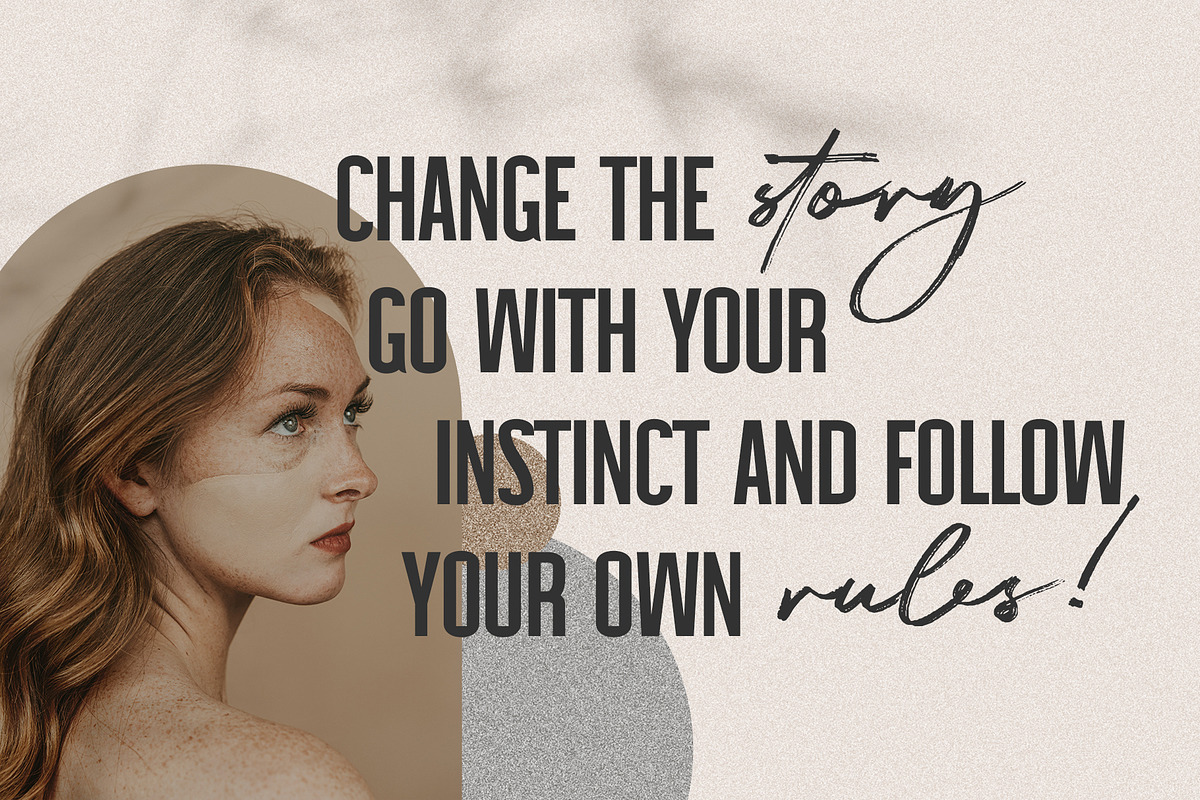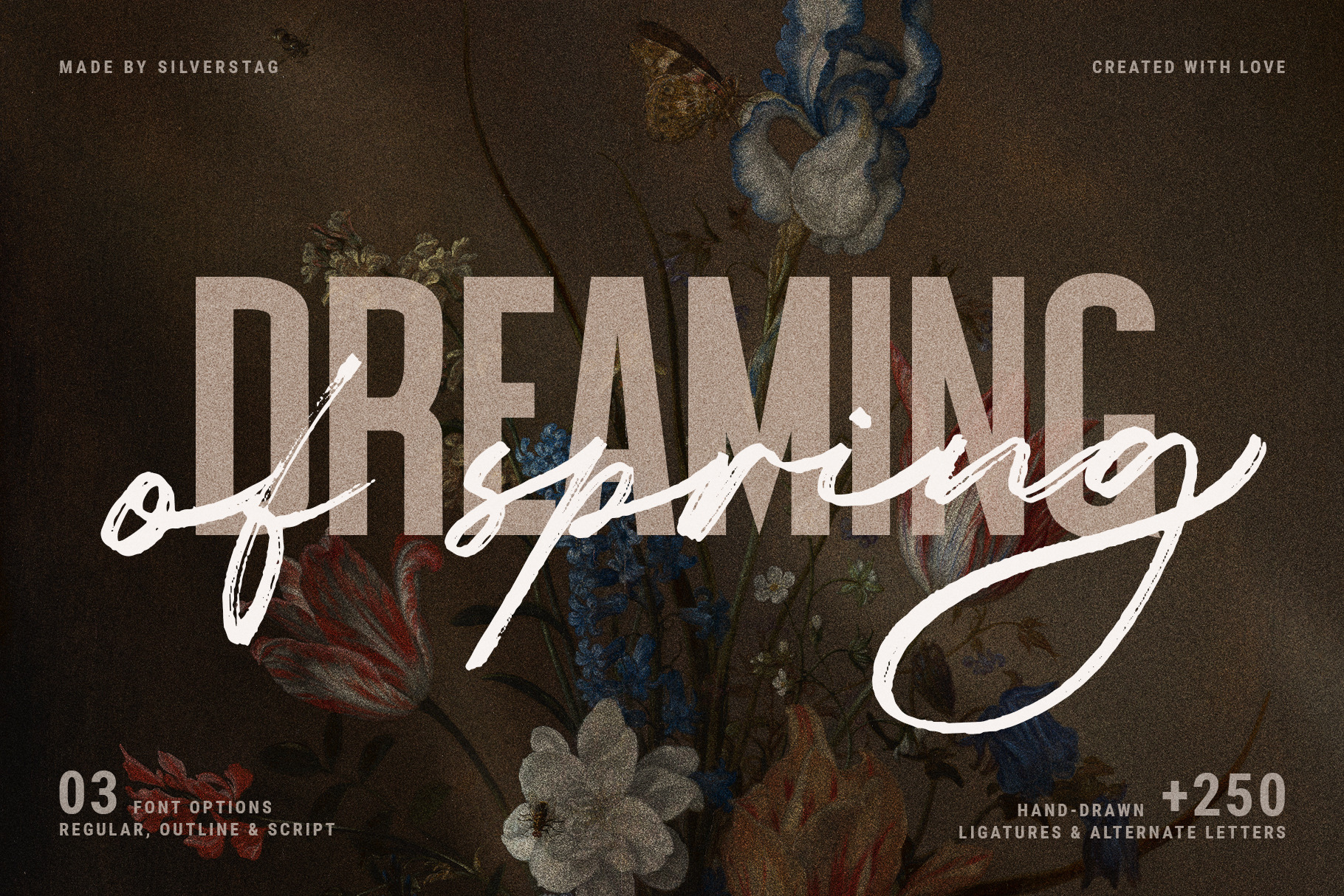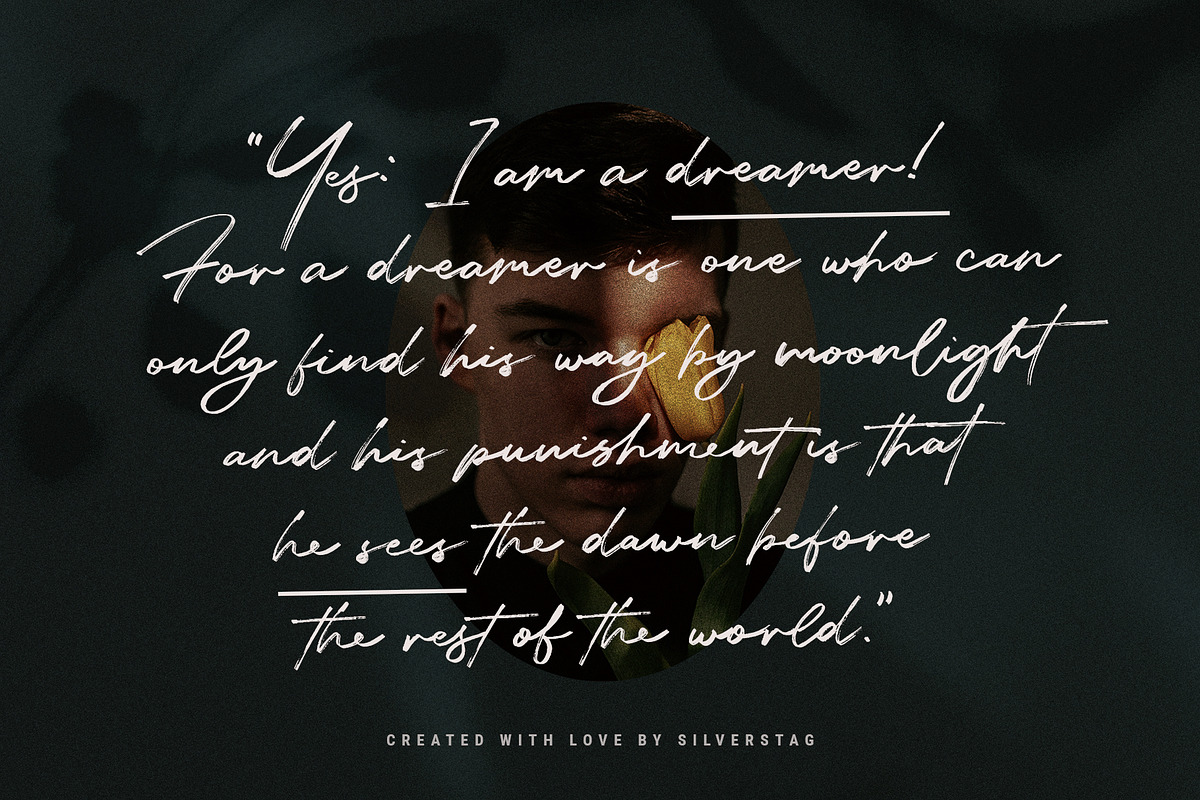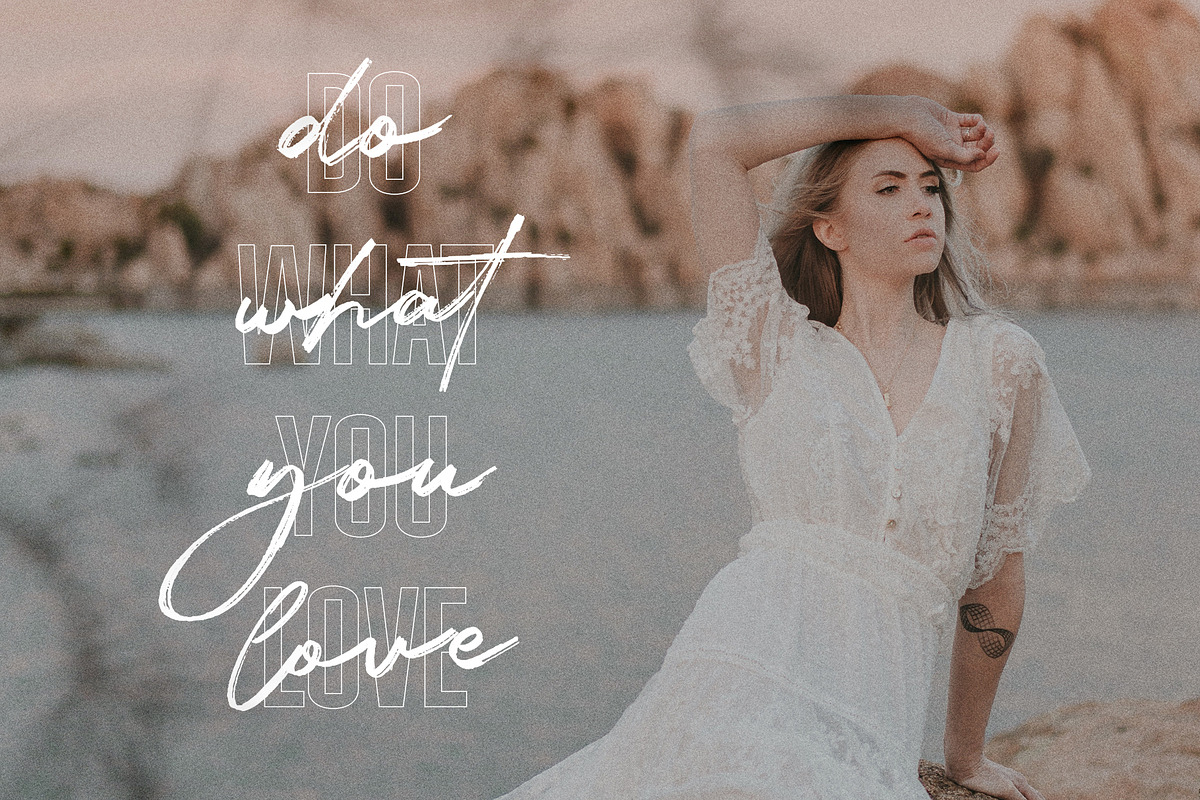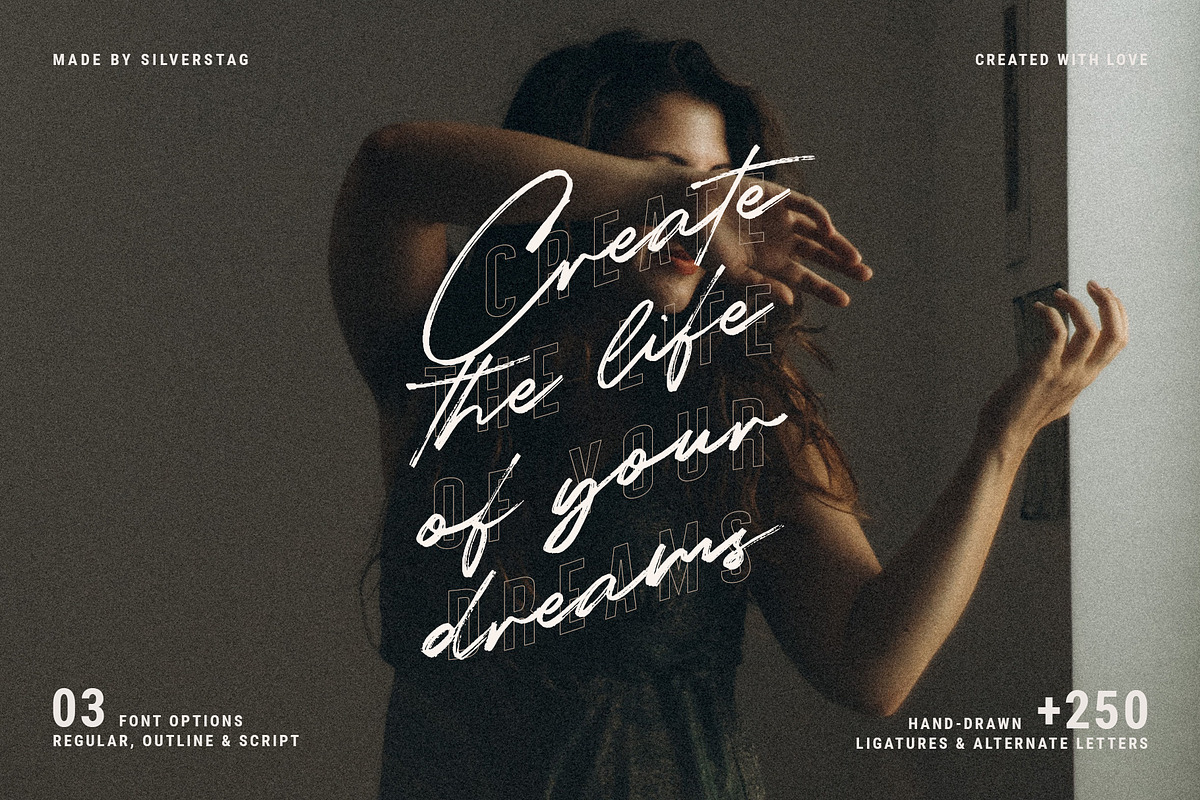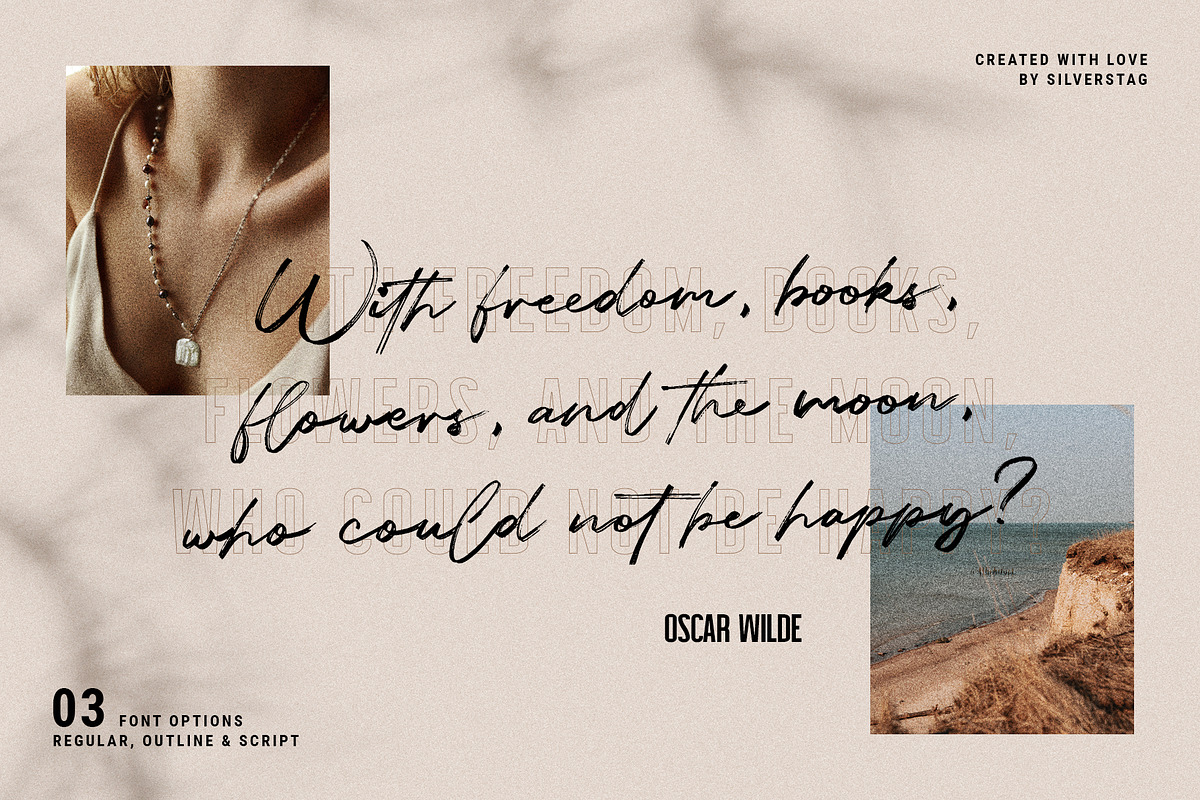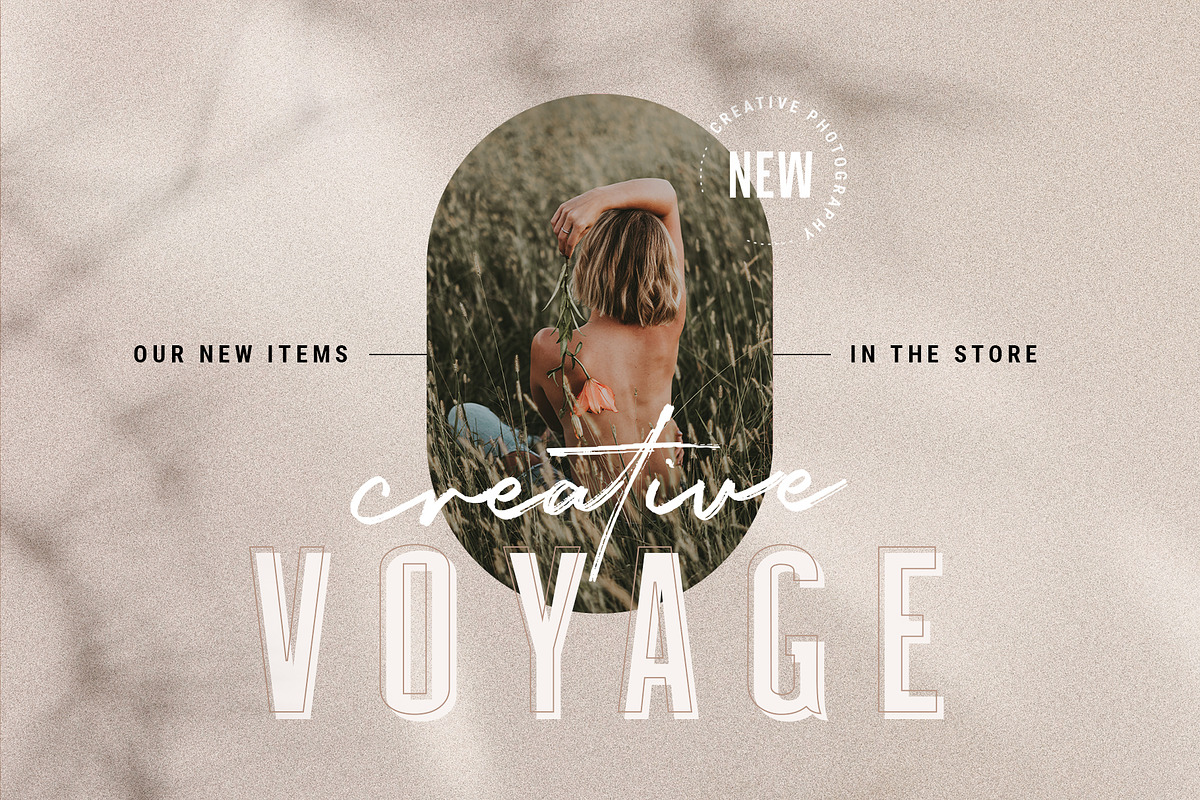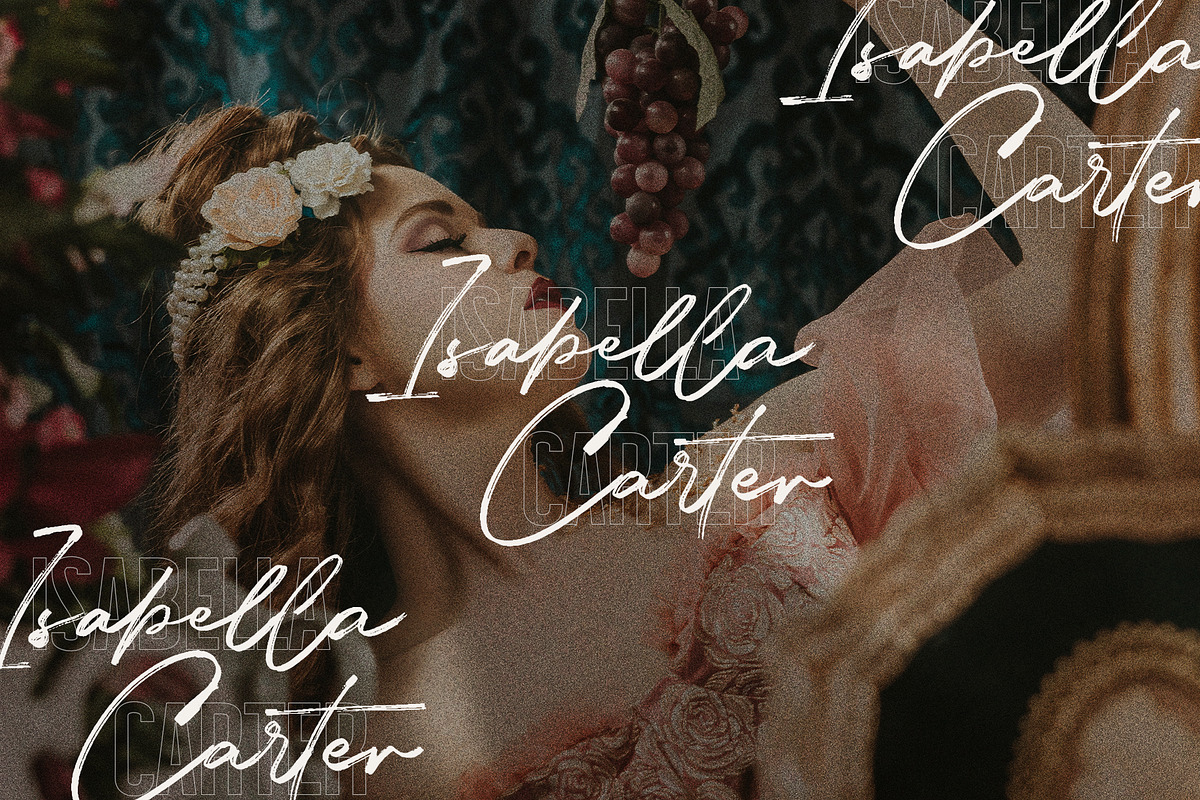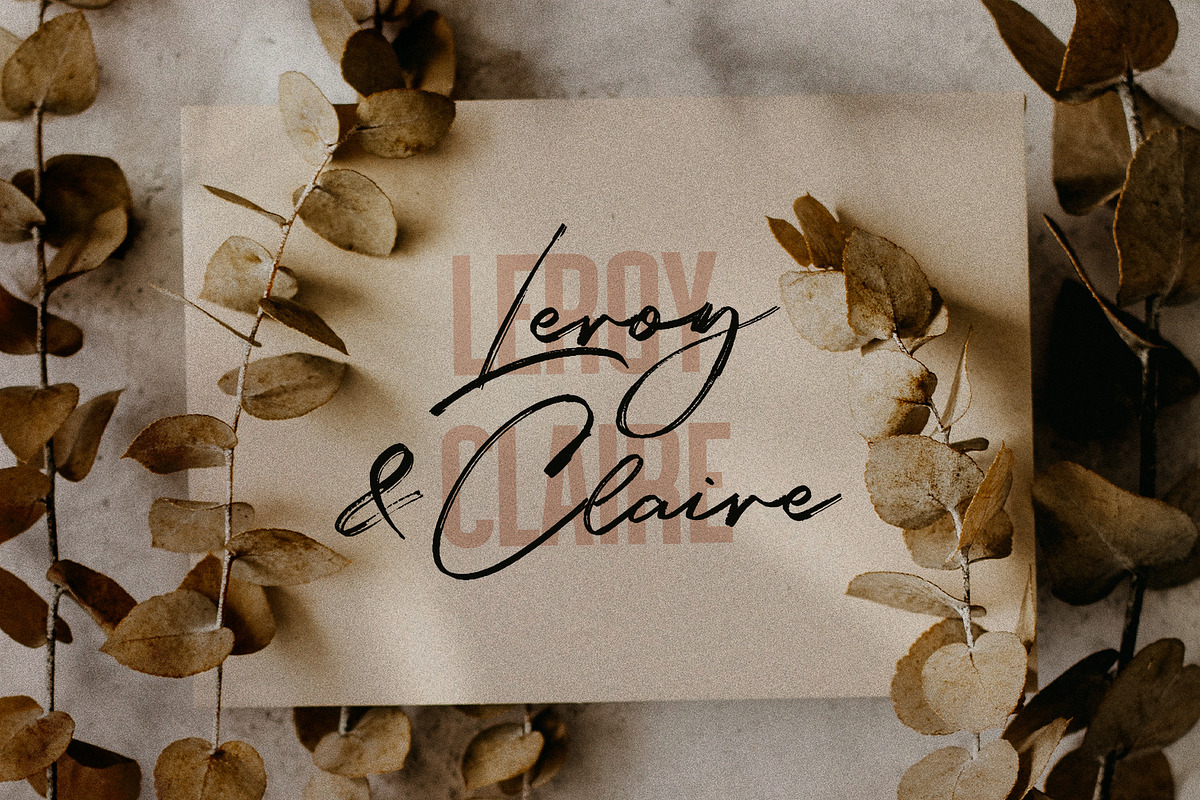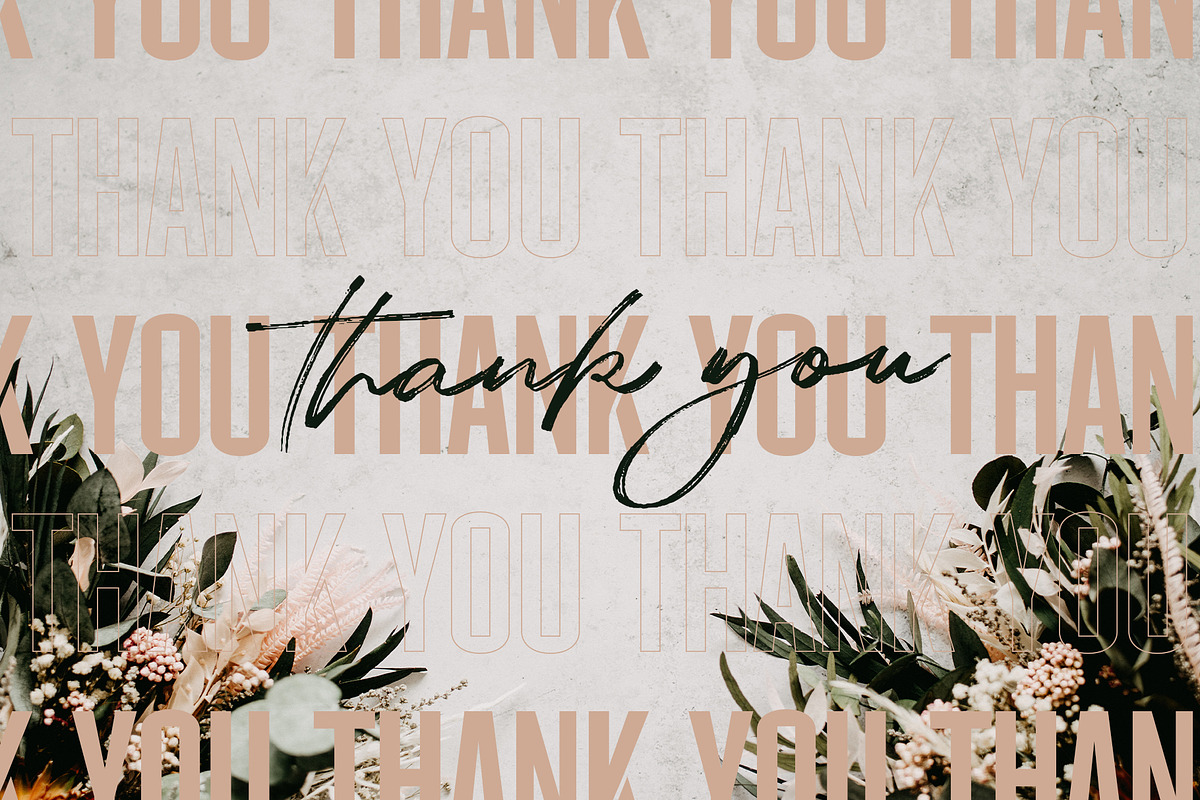
Dreaming Of Spring Stylish Font Duo
Already dreaming of spring? If you're like me you do like winter, but just for a couple of days. Snow? A day or two max! Cloudy weather? No, not really. If it wasn't for the holidays, I think winter would be a complete waste of our time. So, I am dreaming of spring and that is why my new font duo is called just like that!
A creative hand-drawn brush script comes with over 250 ligatures and alternate letters and it comes paired with an elegant and simple sans font that comes in two variants, regular and outlined. The sans & script combination will make all your projects look fresh and unique!
- Full Language Support
- Over 250 Ligatures and Alternates
- Lowercase and Uppercase letters
The standard font includes the following letters: A À Á Â Ã Ä Å C Ç D Ð E È É Ê Ë I Ì Í Î Ï N Ñ O Ø Ò Ó Ô Õ Ö U Ù Ü Ú Û W Ẃ Ŵ ẄẀ Y Ý Ÿ Ỳ Ÿ Æ Œ ß Þ þ in uppercase and supports Danish, English, French, German, Norwegian Bokmål, Portuguese, Spanish, Swedish.